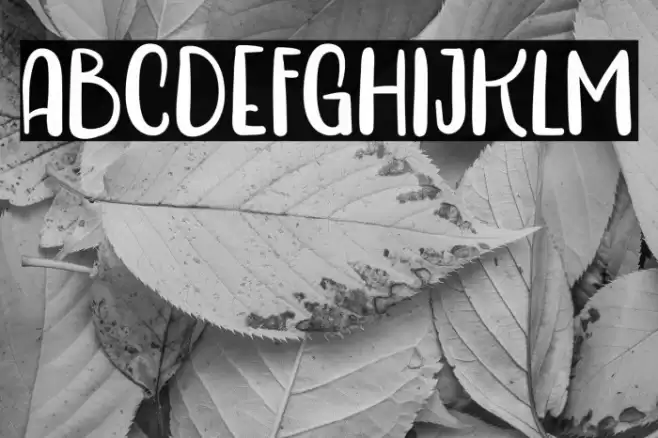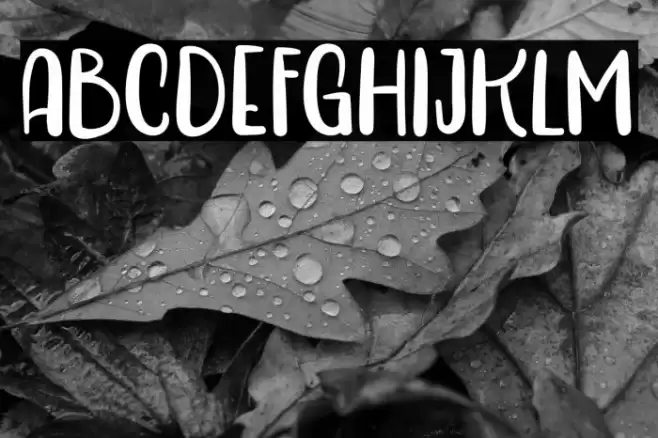
HarmoniaFREE Font
HarmoniaFREE Description
This font features a playful and casual handwritten style, characterized by its rounded and smooth letterforms. The strokes are consistent in thickness, giving it a uniform appearance. The letters have a slight slant, adding to the informal and friendly feel. The uppercase and lowercase letters are well-balanced, with a slight variation in height that enhances its charm. The font is versatile, suitable for both digital and print media, and can be used to convey a sense of warmth and approachability.
A playful, casual handwritten font with rounded, smooth letterforms from Uncategorized fonts.
- Font: HarmoniaFREE
- Proposed Projects: Ideal for greeting cards, children's books, social media graphics, and branding projects that require a friendly and approachable look.
- Overall Style: Casual
- Use Case: Logos, Headlines, Informal Text